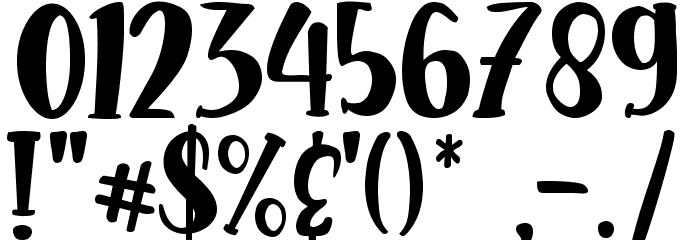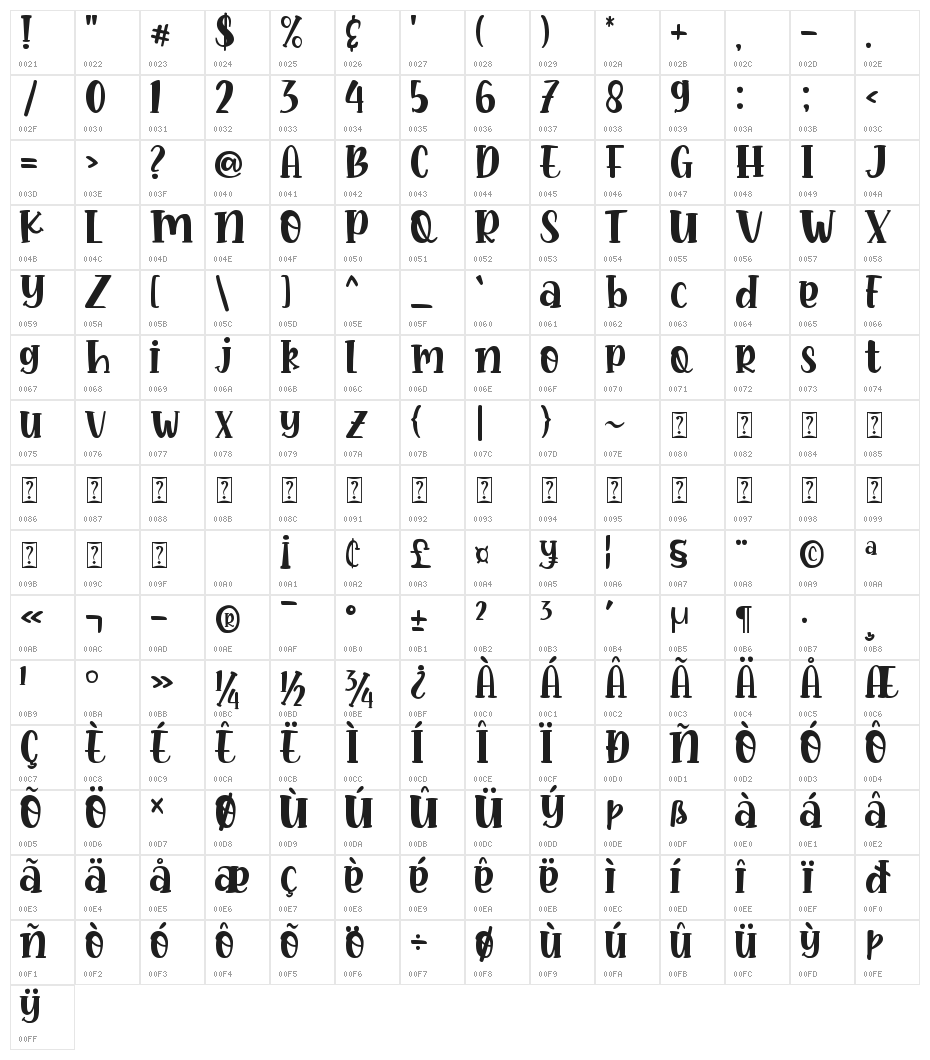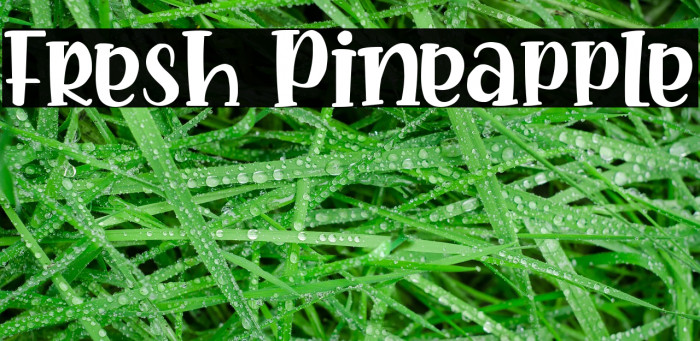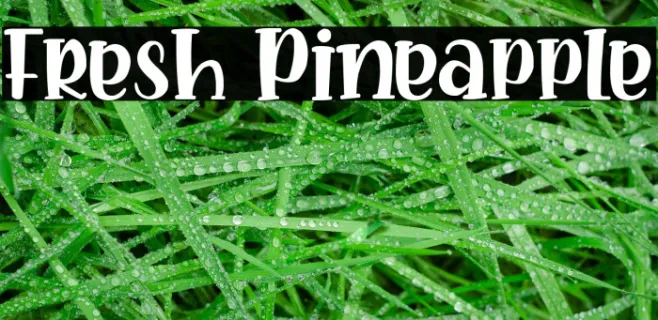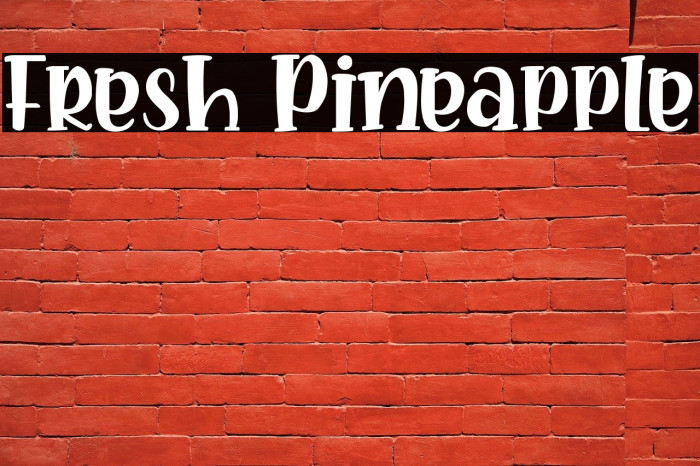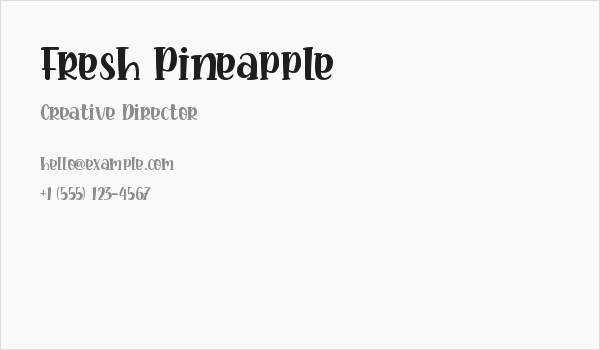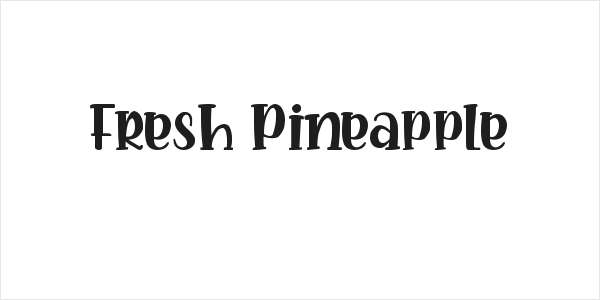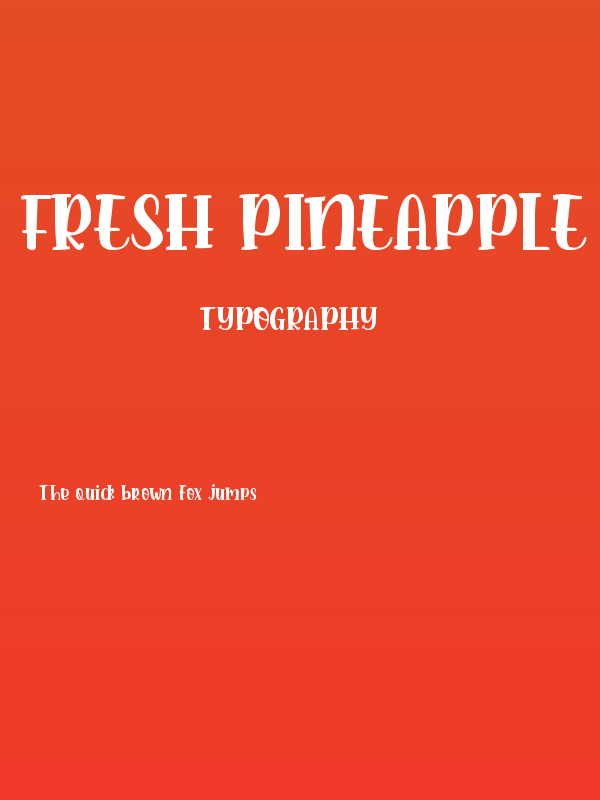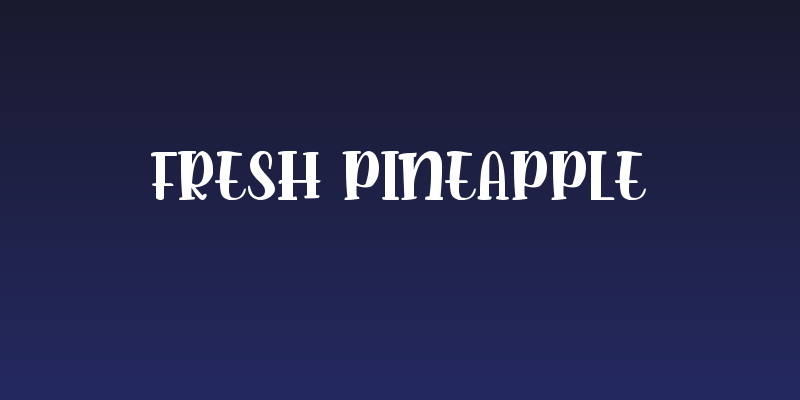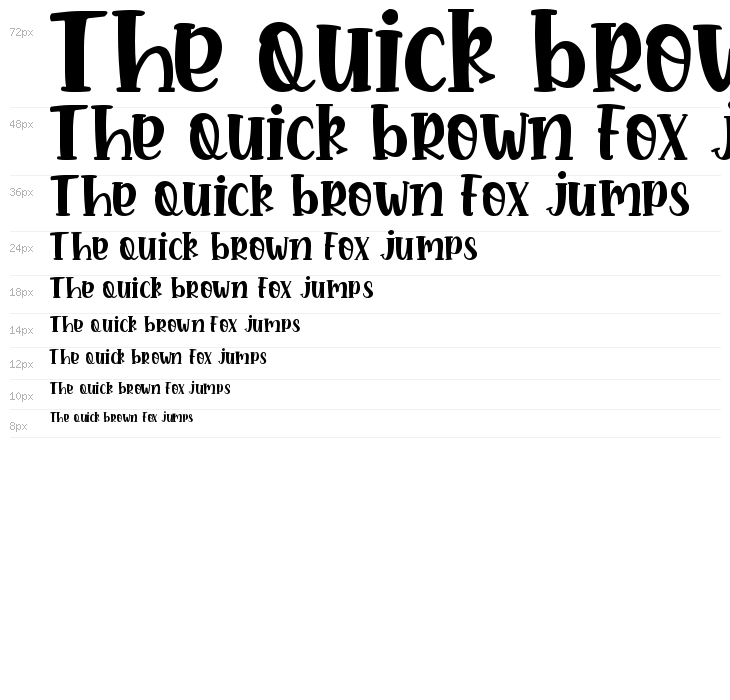
Fresh Pineapple Font
Fresh Pineapple Description
This playful and whimsical font features a bold and lively style, characterized by its rounded and slightly irregular letterforms. The uppercase and lowercase letters exhibit a consistent flow, with a hand-drawn appearance that adds a touch of charm and personality. The numbers and special characters maintain this playful aesthetic, making it suitable for creative and informal designs. The strokes are thick and consistent, providing a strong visual impact. This font is ideal for projects that require a fun and engaging look, such as children's books, playful branding, or casual invitations.
| Proposed Projects | Children's books, playful branding, casual invitations, creative posters. |